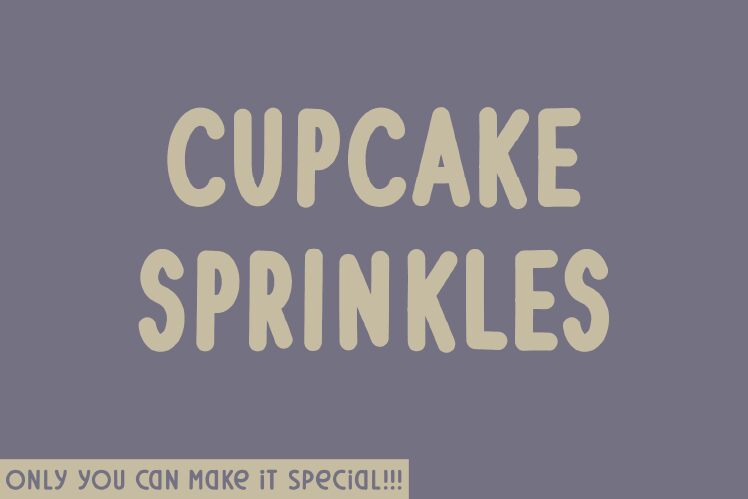
Cupcake Sprinkles font by Hanna Bie of HannaBie Creative Studio captures the whimsy and charm of a handwritten style. Its condensed form enhances its playful and inviting look, making it perfect for a variety of creative projects.
The unique aesthetic of this font ensures that headlines, logos, and invitations become instantly captivating. Whether you're crafting a cheerful greeting card or designing engaging posters, Cupcake Sprinkles adds a delightful flair to any layout. This free font is available for download, making it an accessible choice for designers seeking to inject personality into their work without compromising on style or readability.
Embrace its distinctive character in your next project and enjoy the artistic touch it brings to your designs.